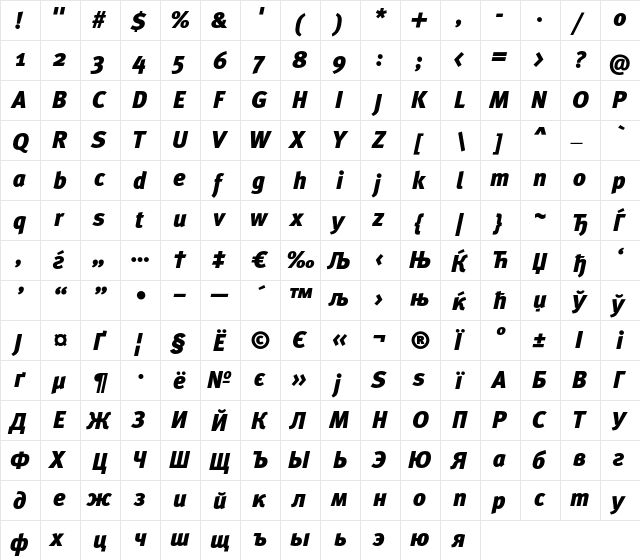
MetaBlackCyr-Italic Regular
Design Context for MetaBlackCyr-Italic Typeface
MetaBlackCyr-Italic takes a measured approach to typography — its balanced proportions and neutral character make it a reliable workhorse for both digital and print work. The slanted form adds forward momentum and visual energy.
Pro Tip: Use MetaBlackCyr-Italic for emphasis, pull quotes, and subheadings where its slanted energy can add rhythm to the layout.